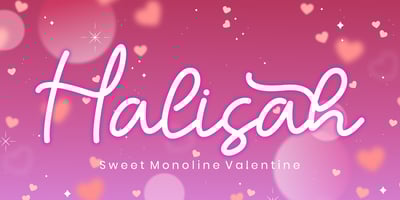
Halisah
Halisah font
Halisah Font Family was designed by Mohamad Candirah and published by MC Creative. Halisah contains 1 styles and family package options. Halisah is monoline script font which natural movement and elegant for valentine style.Halisah perfect for branding projects, logo, wedding designs, social media posts, advertisements, product packaging, product designs, label, photography, watermark, invitation, stationery and any projects that need handwriting taste.________________________________________What’s Included :• (OTF / TTF/WOFF)• Standard Glyphs• Ligature• Works on PC & Mac• Simple installations• Accessible in the Adobe Illustrator, Adobe Photoshop, Adobe InDesign, even work on Microsoft Word.• PUA Encoded Characters – Fully accessible without additional design software.• Fonts include multilingual support for; ä ö ü Ä Ö Ü ß ¿ ¡________________________________________Thank you for your purchase!Hope you enjoy with our font!